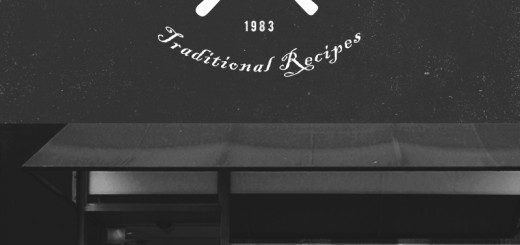
Energia
Ralph Unger
Publisher: profonts
Energia Pro is yet another new, charming and whimsical profonts script typeface designed by Ralph M. Unger. Its design is based on Arno Drescher’s Energos from 1932, but Unger completely redesigned the typeface, extended and completed the character…